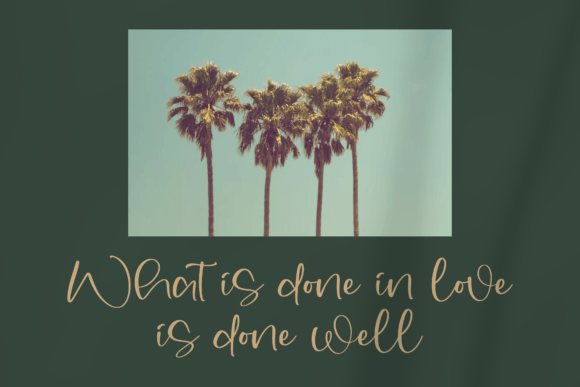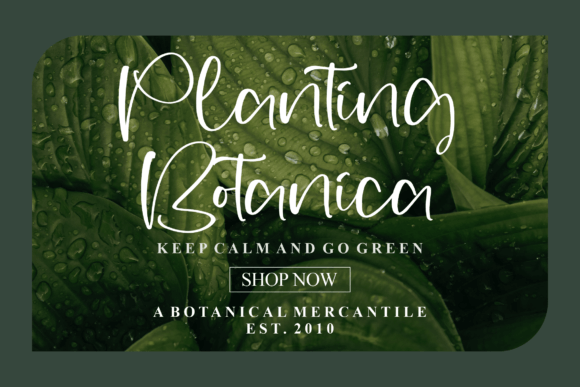
Introduction to Raticale Font
Raticale is a modern handwritten font perfect for logos, branding projects, homeware designs, product packaging, mugs, quotes, posters, shopping bags, T-shirts, book covers, name cards, invitation cards, greeting cards, labels, photography, watermarks, special events, or any project you wish to create.
Key Features of Raticale Font